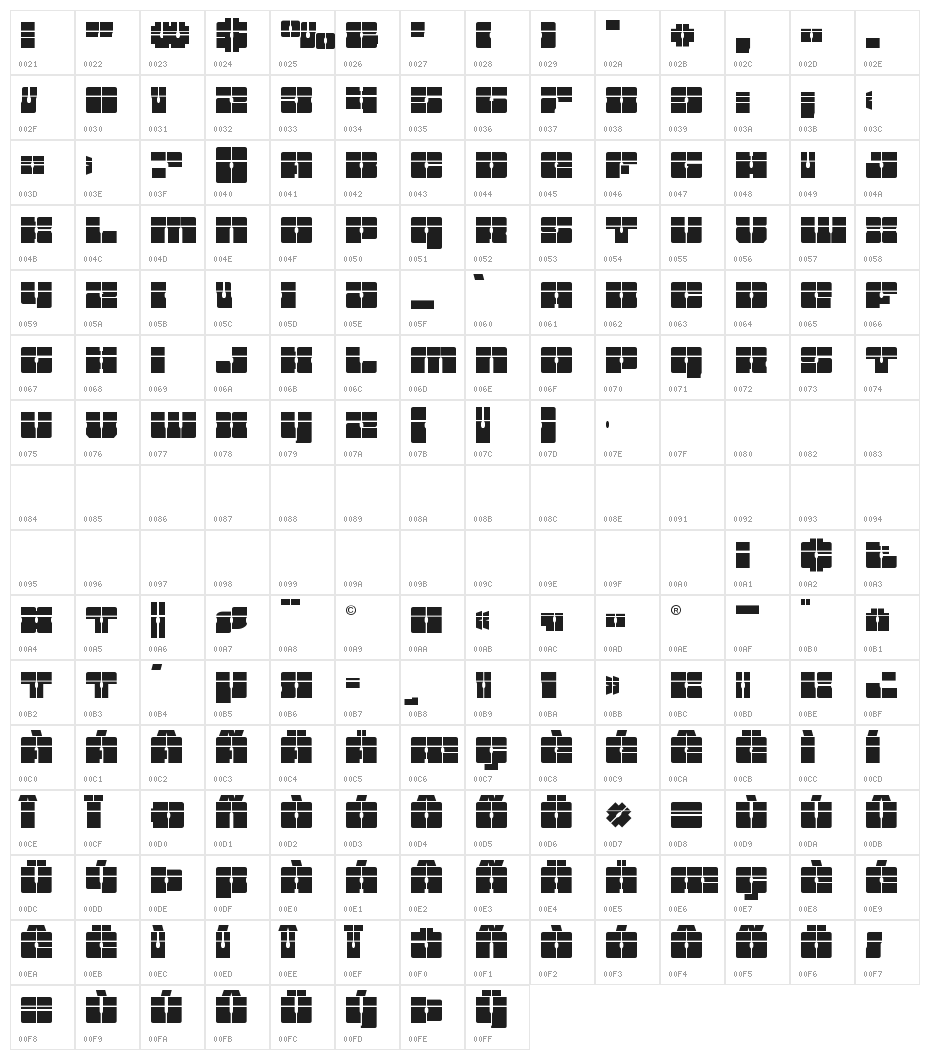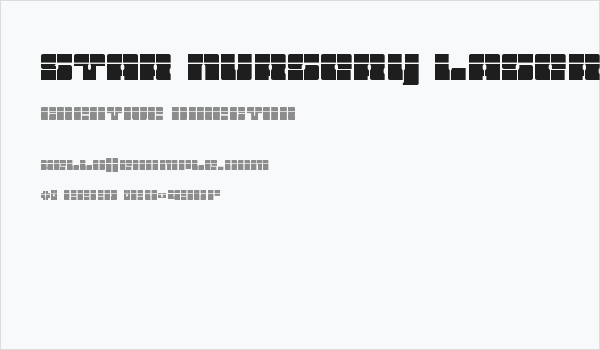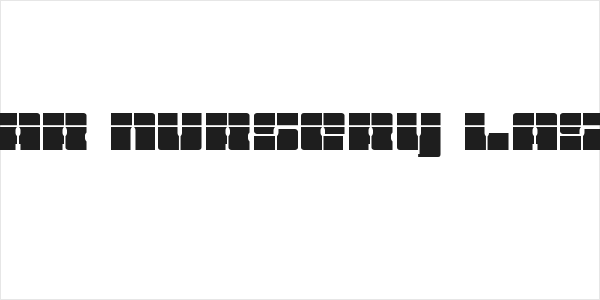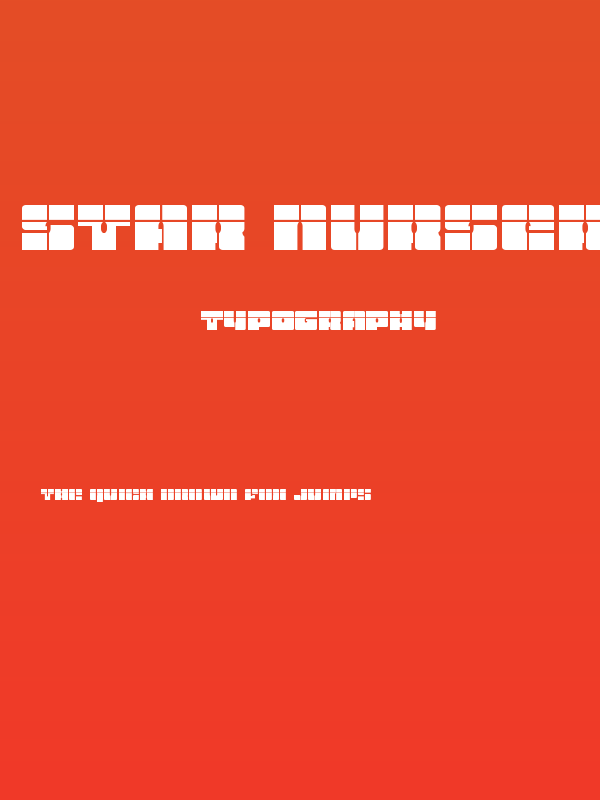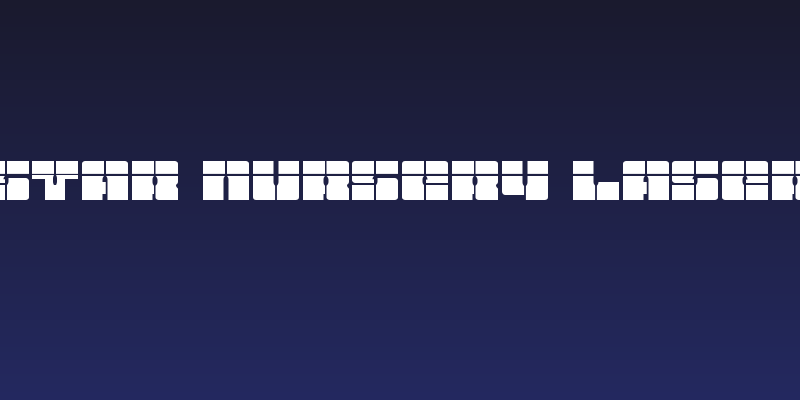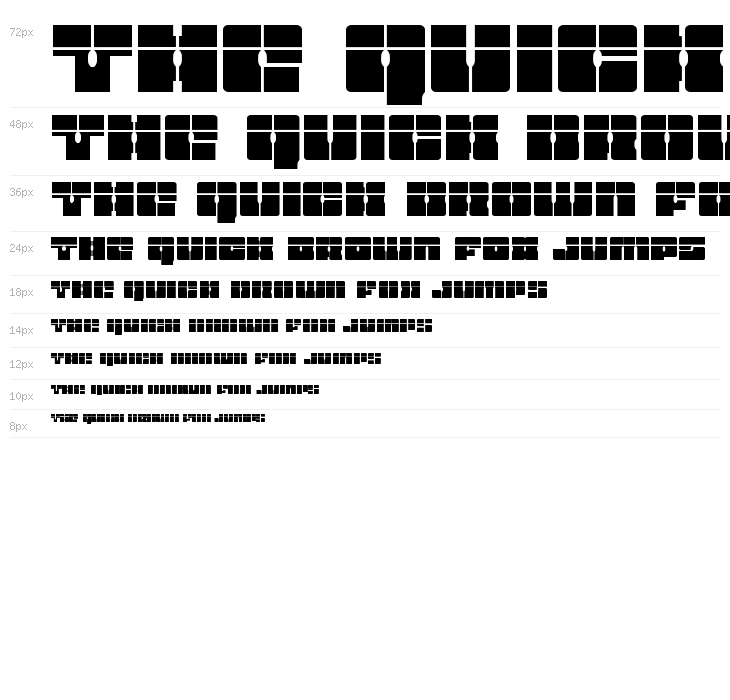
Star Nursery Laser Font
Star Nursery Laser Description
This font features a futuristic and geometric design, characterized by bold, block-like letters with a distinct digital aesthetic. Each character is composed of solid, rectangular shapes with minimal curves, giving it a highly structured and mechanical appearance. The uniformity in the design creates a cohesive look, while the boldness of the letters ensures high visibility and impact. The font is particularly suited for projects that require a modern and technological feel, such as digital interfaces, tech branding, or sci-fi themed designs.
| Proposed Projects | Ideal for tech branding, digital interfaces, sci-fi themes, and modern posters. |